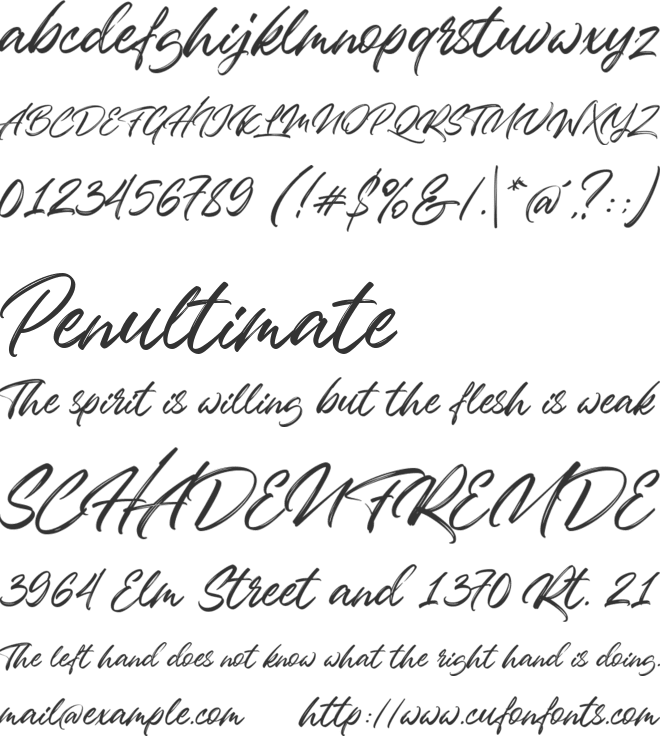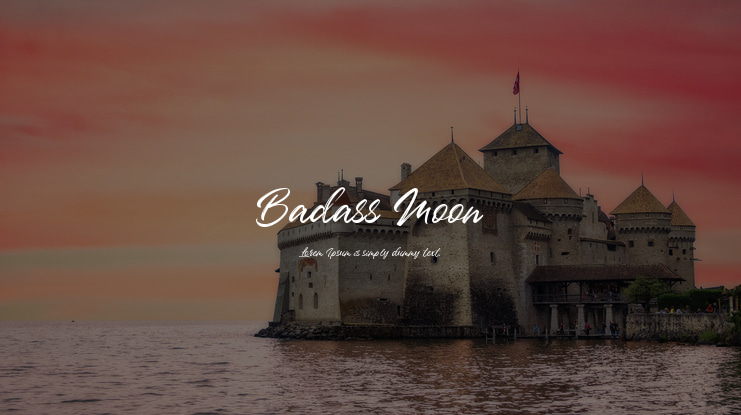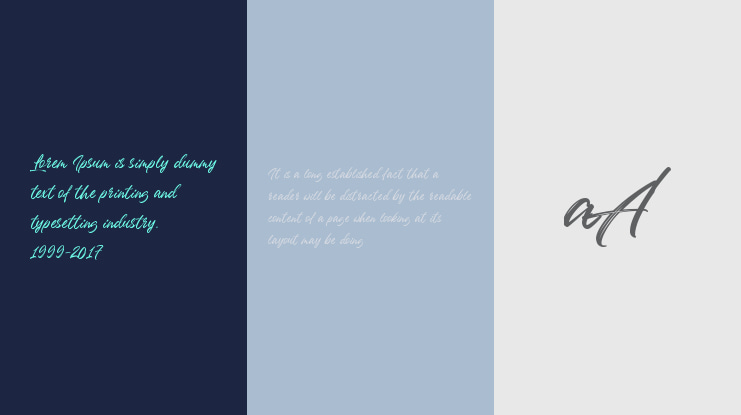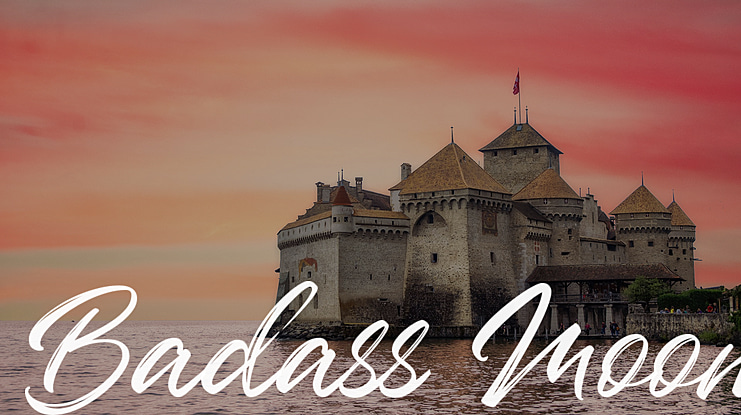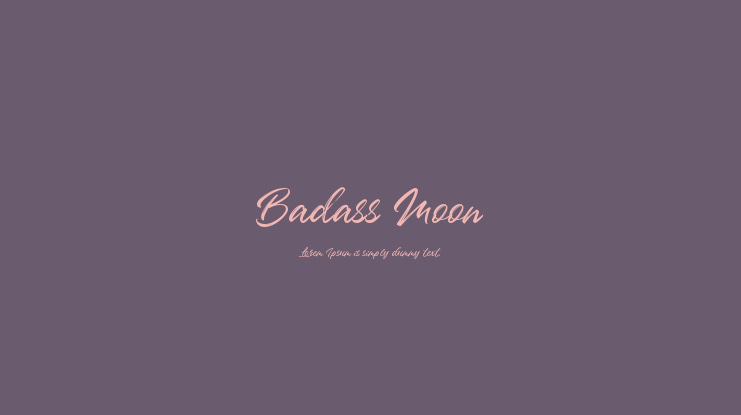
Badass Moon Font
Badass Moon is a cool script font made from the lettering work of Andrey Popovich ( https://www.instagram.com/andrey_ppvch/ ). The full commercial version includes a huge set of 115 alternates, contextual ligatures and underlining.